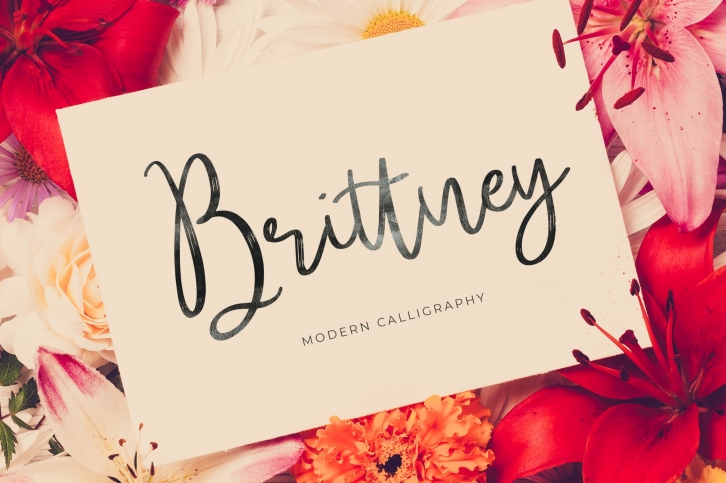
Brittney is a lovely modern calligraphy font. It’s combining the classic look of calligraphy with a more modern style.
Brittney is perfect for branding projects, logo, wedding designs, social media posts, advertisements, product packaging, product designs, label, photography, watermark, invitation, stationery and any projects.